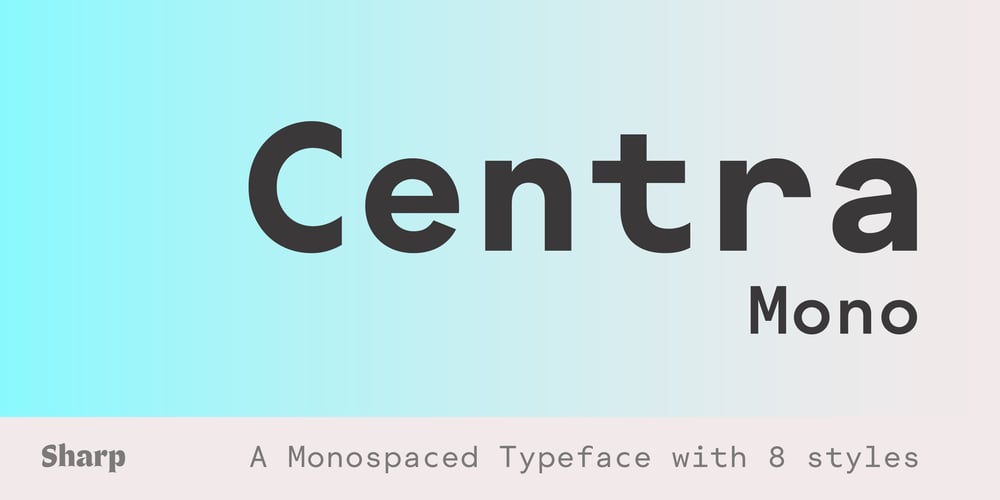
Centra Mono Font Family was designed by Josh Finklea and published by Monotype. Centra Mono contains 8 styles and family package options. Following the dual release of the Centra No. 1 and Centra No. 2 in 2017, Josh Finklea expanded the sans serif series with Centra Mono. The typeface is an amalgamation of its geometric sans relatives, constrained but not hindered by a fixed-width system.Monospaced typefaces tend to reference either the analog and material quirks of a typewriter or the calculated efficiency of a programming environment. Centra Mono is neither limited by technology or context but takes its place as a contemporary response to monospace typography. Available in 4 weights in both Roman and italic, the typeface is part of an established conversation between Centra’s humanistic warmth and modernist rationale but operates as its own fine-tuned instrument.